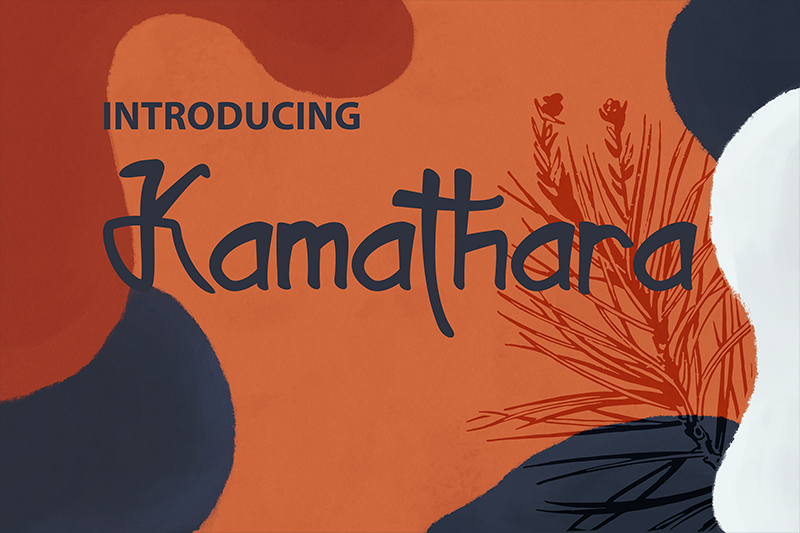
Preview and download Kamathara Font. Created by Wahy Sapt in Script Various styles with Free for personal use license.
Link to comersial use: https://bit.ly/2KPnh6y Hi, Kamathara font is a font that adopts the concept of uniqueness to each letter form density. This makes kamathara fonts look unique when applied in a design such as logos, browsers, posters, youtube channel logos, apparel, and other designs. Include: File TTF & OTF |